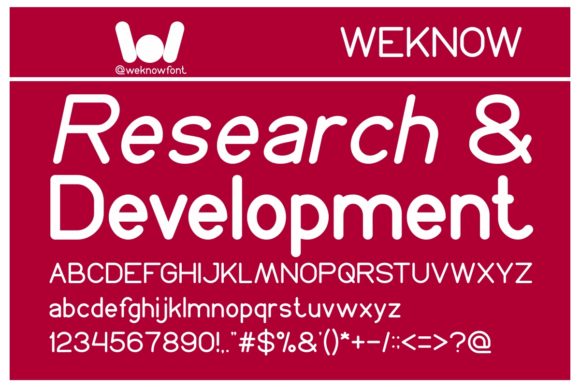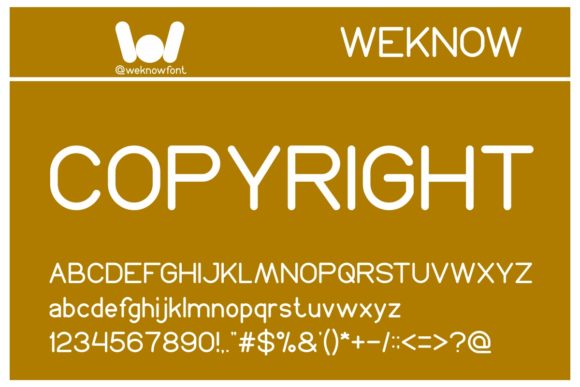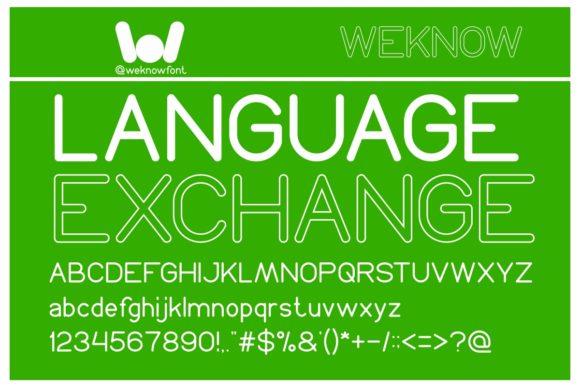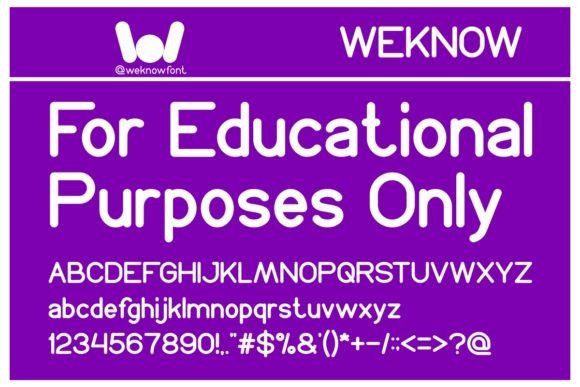
Introduction to Professional Edition Font
Have you ever stared at a blank page, waiting for inspiration to strike, only to have a single font choice bring your entire creative project to life? This is exactly what happened to me when I discovered the Professional Edition Font. Its minimal and neat sans serif design made my design ideas stand out in a way I never thought possible.
As a designer, I know how crucial it is to have access to high-quality design resources that can elevate our work. The Professional Edition Font is one such resource that offers a transparent background, making it perfect for a wide range of creative projects. Whether you’re working on a business card, brochure, or website, this font is sure to deliver professional results.
Key Features of Professional Edition Font
- Includes 10 font styles with transparent background, ideal for logo design and branding
- Each font style is carefully crafted with high resolution (300 DPI) for crisp and clear display
- Unique characteristics include customizable font sizes, from 8pt to 48pt, and adjustable line spacing
Honest Review: Professional Edition Font
I recently had the chance to work with the Professional Edition Font, and I’m excited to share my honest thoughts on this design resource. As a designer, I’m always on the lookout for high-quality fonts that can elevate my creative projects.
The Professional Edition Font is a great addition to any design toolkit. Here are some of the things that work well:
- ✨ High-quality typography: The font is crisp and clean, making it perfect for a variety of design applications.
While the Professional Edition Font is a great resource, there are a few limitations to keep in mind:
- ⚠️ Limited character set: The font only includes a limited number of characters, which may not be suitable for more complex design projects.
Overall, I’m impressed with the Professional Edition Font and would recommend it to designers looking for a high-quality design resource for their creative projects.
The Professional Edition Font is ideal for use in a variety of creative projects, including business presentations, marketing materials, and digital graphics. It’s also a great resource for designers and artists looking to add a touch of professionalism to their work.